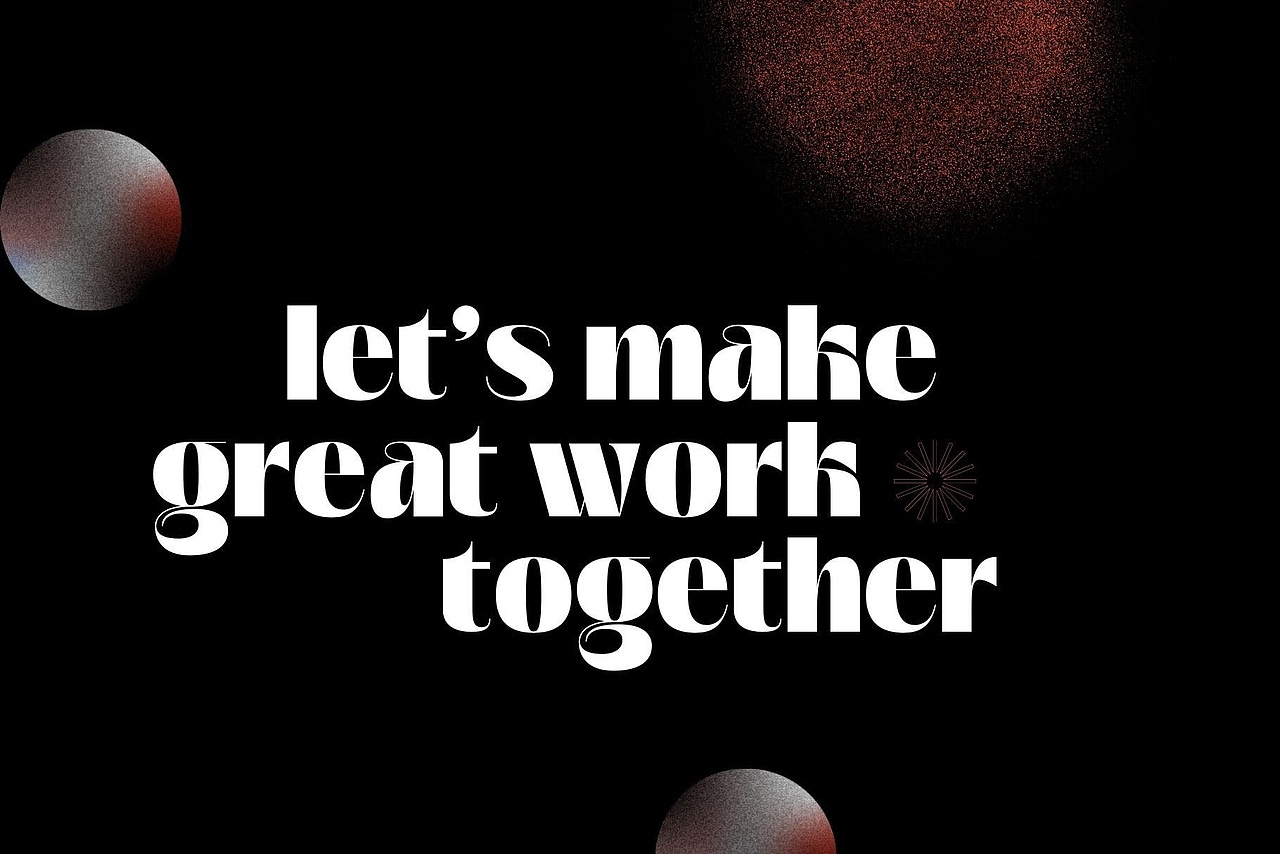
Aloha Magazine - Logo font
Aloha Magazine Unique& playful sans serif serif family with 9 Weights
Aloha Magazine offers beautiful typographic harmony for a diversity of design projects, including logos & branding, social media posts, advertisements & product designs.